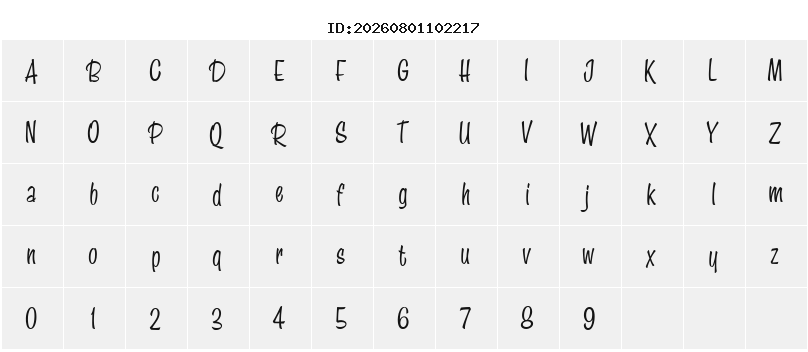
LHF Speedstyle II Preview
• Font Name: LHF Speedstyle II
• Full Font Name: LHF Speedstyle II
About LHF Speedstyle II.ttf
LHF Speedstyle II.ttf is a modern, elegant sans-serif font designed for ultimate readability and visual harmony. Perfect for branding, headlines, web design, and print materials.